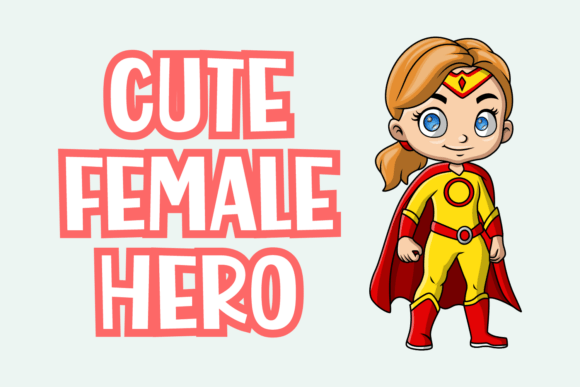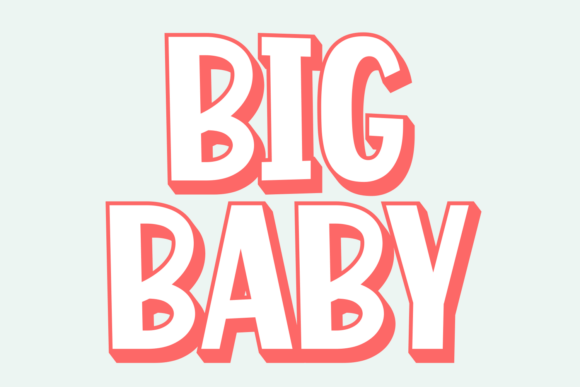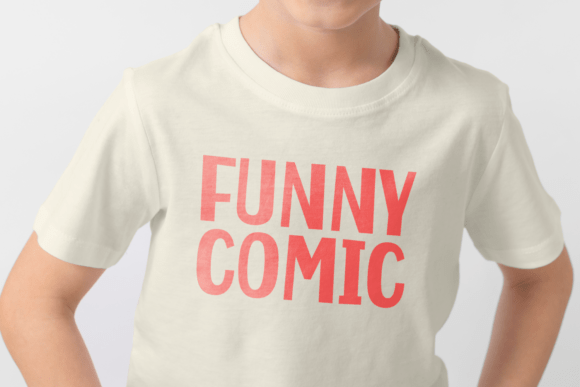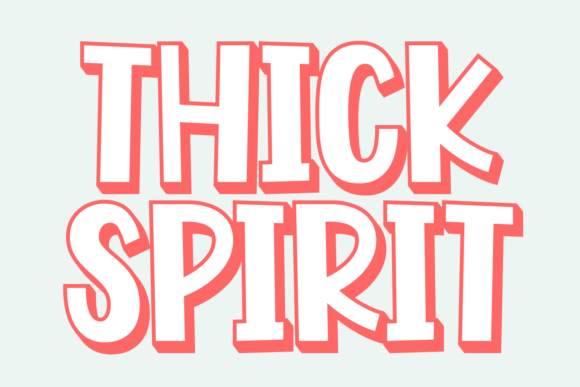
Camila Comics Font: The Ultimate Display Typeface for Youthful Energy
Are you tired of using the same old fonts for your designs? Look no further! Introducing Camila Comics Super Eager Font, the perfect display typeface that exudes youthful energy and enthusiasm. This playful and whimsical font is designed to make a memorable splash in your designs, whether it’s for poster design, branding projects, or children’s book cover design.
A Dynamic and Playful Font
Camila Comics Super Eager Font boasts a dynamic style that effortlessly radiates youthful energy and enthusiasm. Its playful and whimsical design makes it ideal for creating eye-catching headlines and attention-grabbing titles. The font’s comprehensive character set and high readability make it perfect for educational materials, children’s book cover design, and even product branding.
Multilingual Support for International Assignments
In today’s globalized world, designers often work on international projects that require multilingual support. Camila Comics Super Eager Font has got you covered! With its multilingual support feature, you can create designs that cater to diverse audiences worldwide. This feature makes it an excellent choice for designers who work on international assignments.
Versatility and Approachability
The versatility of Camila Comics Super Eager Font is one of its standout features. Its approachable design makes it pleasant to the eyes, while conveying a positive message. This font is not just a pretty face; it’s also designed to communicate effectively with your audience. Whether you’re designing for a children’s book, a poster, or a product brand, this font is sure to make a lasting impression.
Ideal for Various Design Projects
Camila Comics Super Eager Font is an excellent choice for various design projects, including:
- Poster design: Create eye-catching posters that grab attention with this playful and dynamic font.
- Branding projects: Establish a strong brand identity with a font that exudes youthful energy and enthusiasm.
- Children’s book cover design: Design engaging and interactive book covers that appeal to young readers.
- Educational materials: Create educational materials that are both informative and visually appealing.
- Product branding: Give your product brand a fresh and youthful look with this vibrant typeface.
Why Choose Camila Comics Super Eager Font?
So, why choose Camila Comics Super Eager Font over other fonts? Here are just a few reasons:
- Unique and playful design that grabs attention.
- Multilingual support for international assignments.
- Comprehensive character set and high readability.
- Versatile and approachable design.
- Ideal for various design projects.
In conclusion, Camila Comics Super Eager Font is an excellent choice for designers who want to add a touch of youthful energy and enthusiasm to their designs. With its playful and whimsical design, multilingual support, and versatility, this font is sure to make a memorable splash in your designs. Whether you’re a designer, craftsperson, or DIY enthusiast, Camila Comics Super Eager Font is the perfect display typeface to elevate your projects.